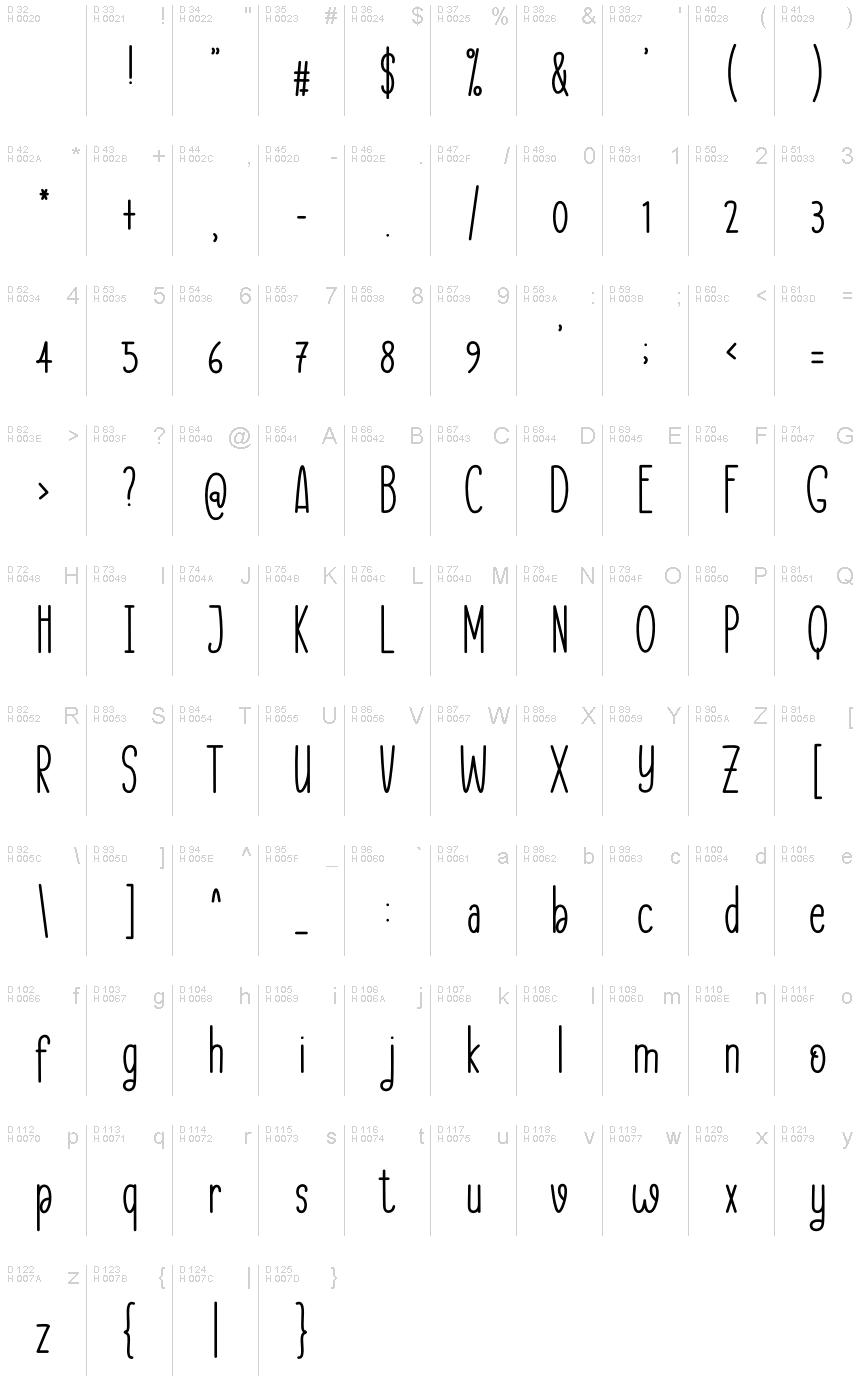
ANIMAL SHELTER
Animal Shelter, a captivating handwritten font crafted by Etik Fatimah, exudes a distinct charm and personality that immediately captivates the viewer. With its condensed width and organic, free-flowing strokes, this font effortlessly conveys a sense of warmth and approachability. The intricate letter forms and subtle variations in stroke weight lend the design a handcrafted, artisanal feel, evoking a nostalgic and inviting ambiance.
This versatile font lends itself particularly well to branding and signage applications, where its distinctive character can help create a memorable and endearing visual identity. Whether in the context of a charming cafe, a cozy boutique, or a community-focused organization, Animal Shelter's adaptability and emotive qualities make it an excellent choice for projects seeking to establish a welcoming and authentic aesthetic.